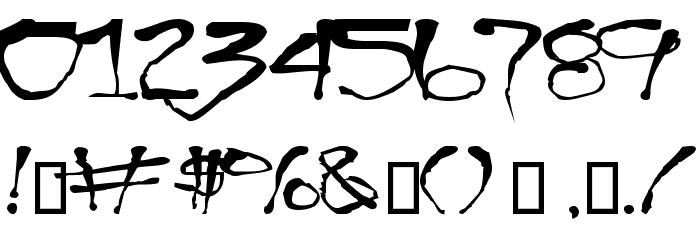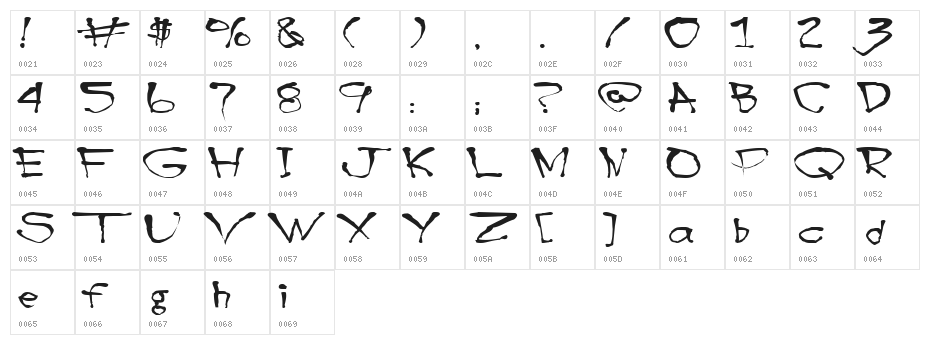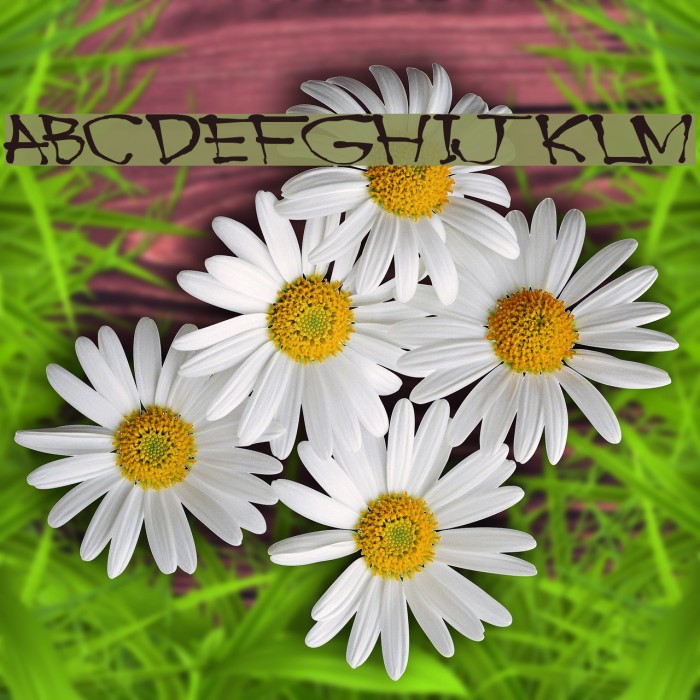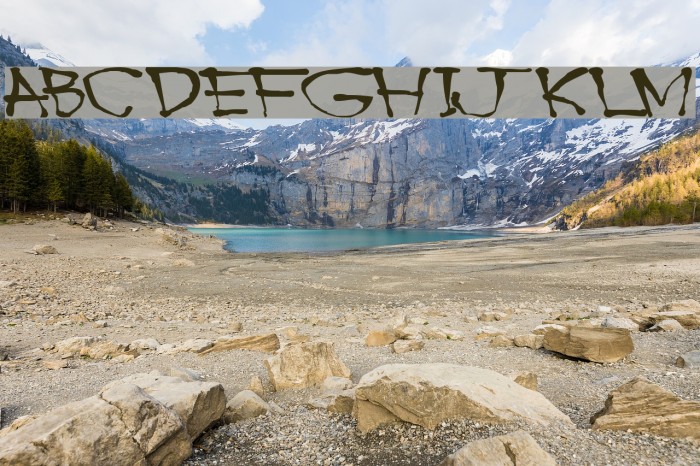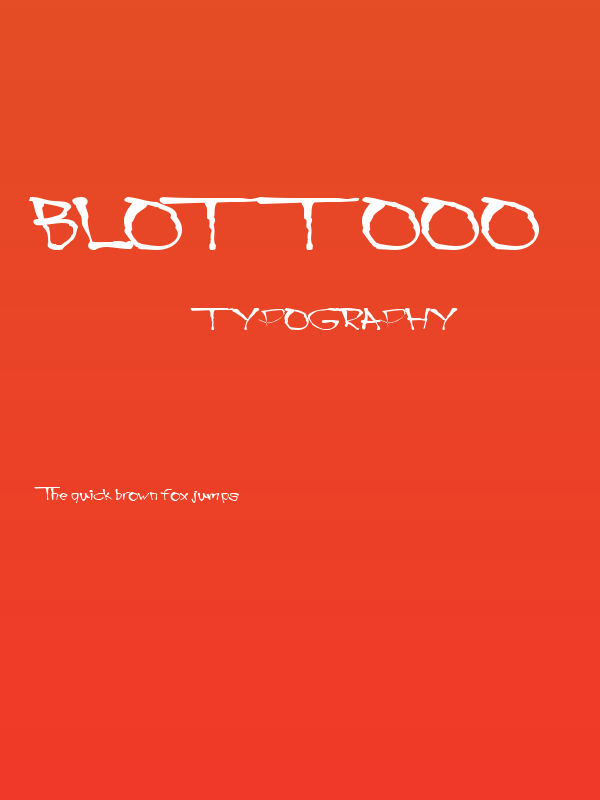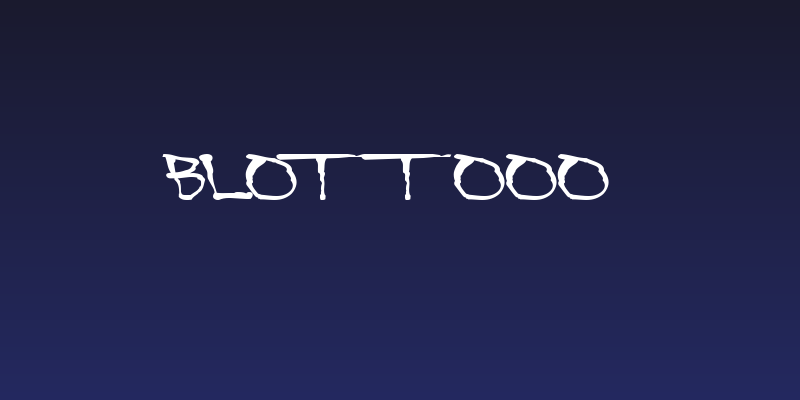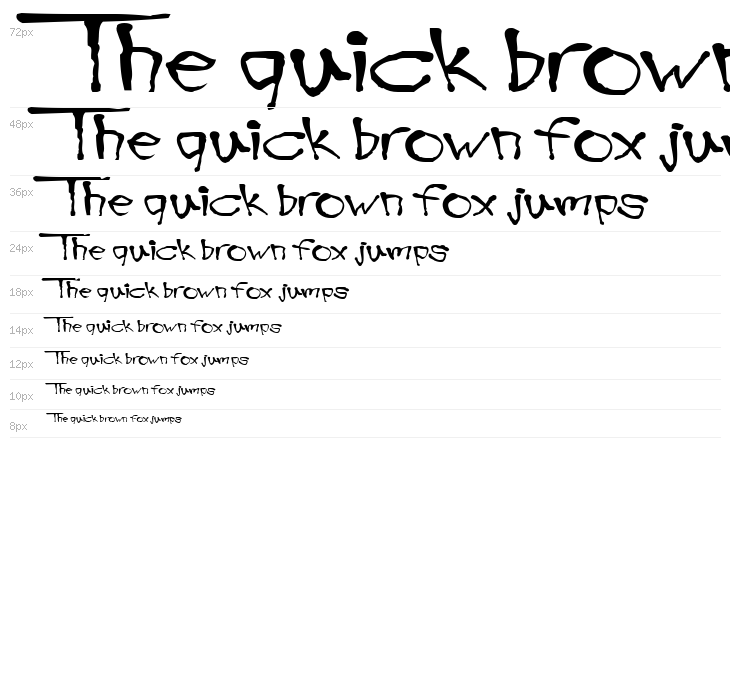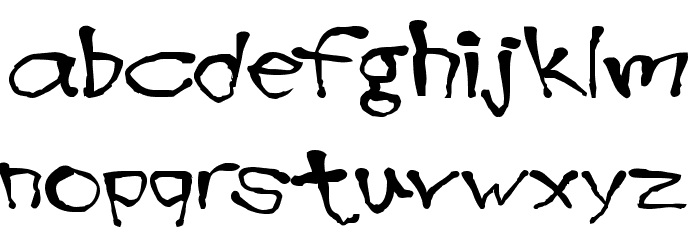
Blottooo Font
Blottooo Description
This font features a highly expressive and artistic style, reminiscent of hand-drawn graffiti or brush strokes. The characters are irregular and dynamic, with varying thicknesses that create a sense of movement and energy. The uppercase and lowercase letters maintain a consistent style, with exaggerated curves and angles that give the font a unique personality. Numbers and special characters follow the same artistic approach, making the font suitable for creative and unconventional projects. The overall appearance is bold and eye-catching, perfect for making a statement.
| Proposed Projects | Ideal for street art designs, music album covers, posters, and creative branding. |